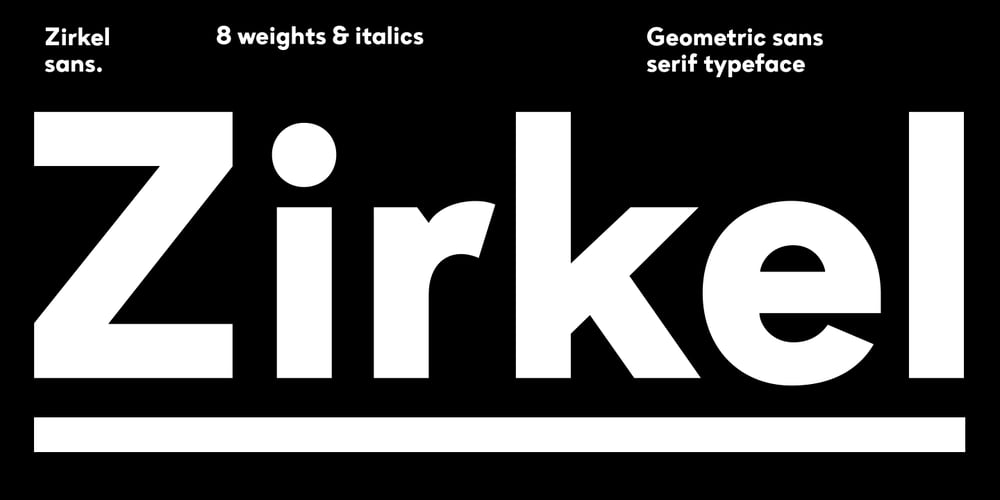
Zirkel
Zirkel font
Zirkel Font Family was designed by Ondřej Kahánek and published by Ondrej Kahanek. Zirkel contains 16 styles and family package options. Zirkel is a geometric sans serif typeface which includes 16 fonts – eight weights and eight matching italics. Each character is geometrical, but optically corrected for better readability. Featuring austere lines, the font gains its strength in the final layout, which is created by the user. Zirkel Sans is suitable for headlines of all sizes, but it can be used in variety of long text as well. This font supports Western, Central and Eastern European languages, ligatures, alternate characters such as A, V, w, etc., and will find its place in the beginning, centre or end of any word. Geometry rulezz…